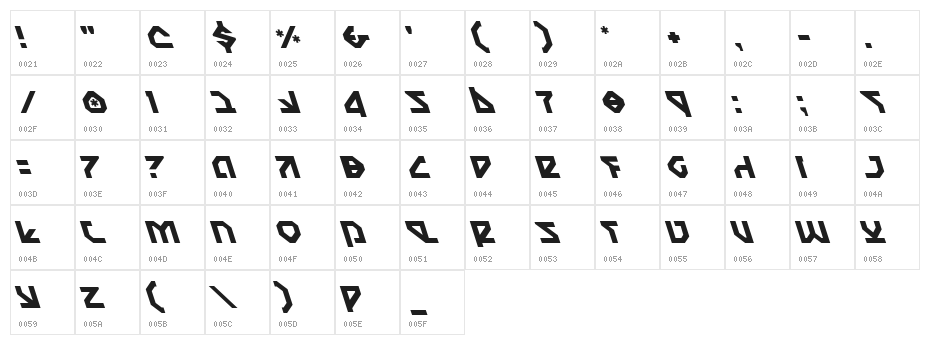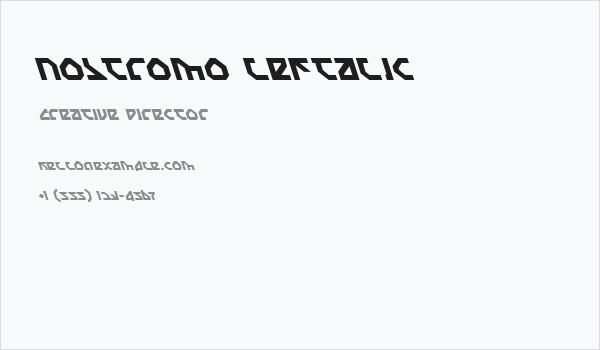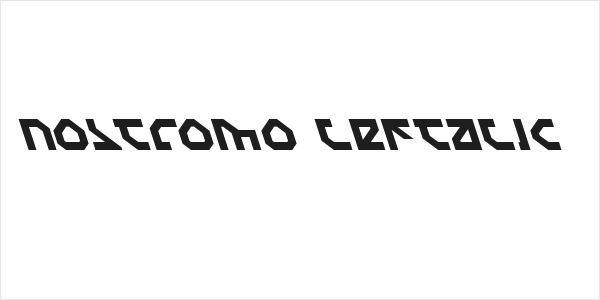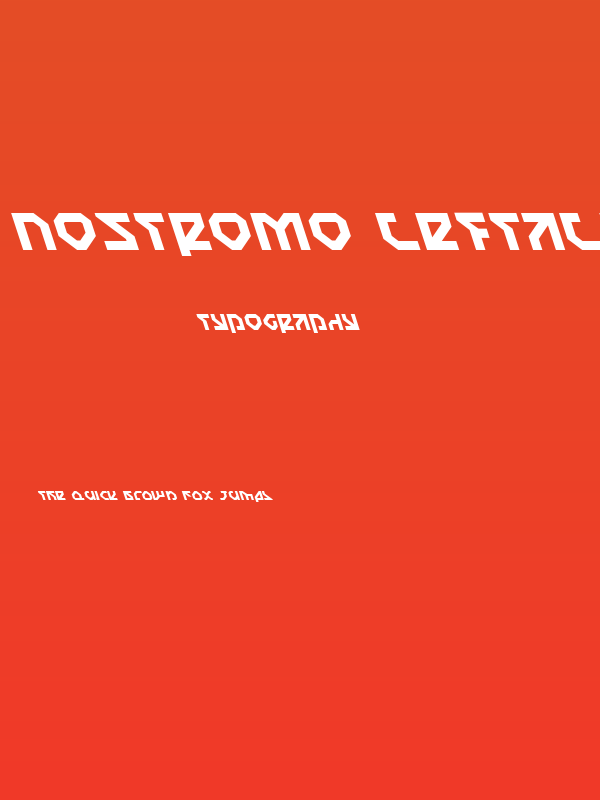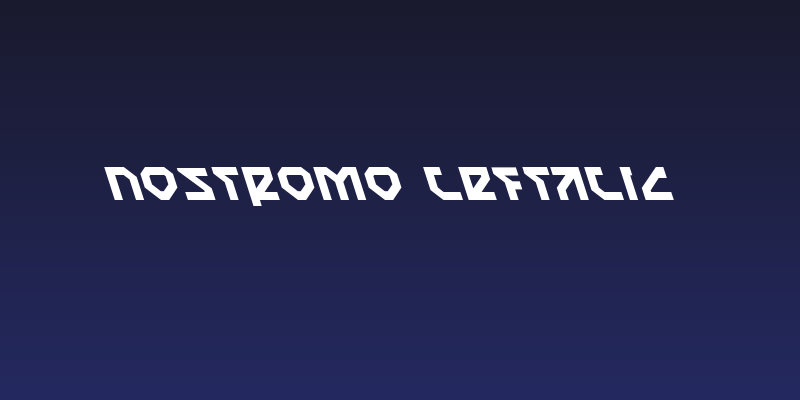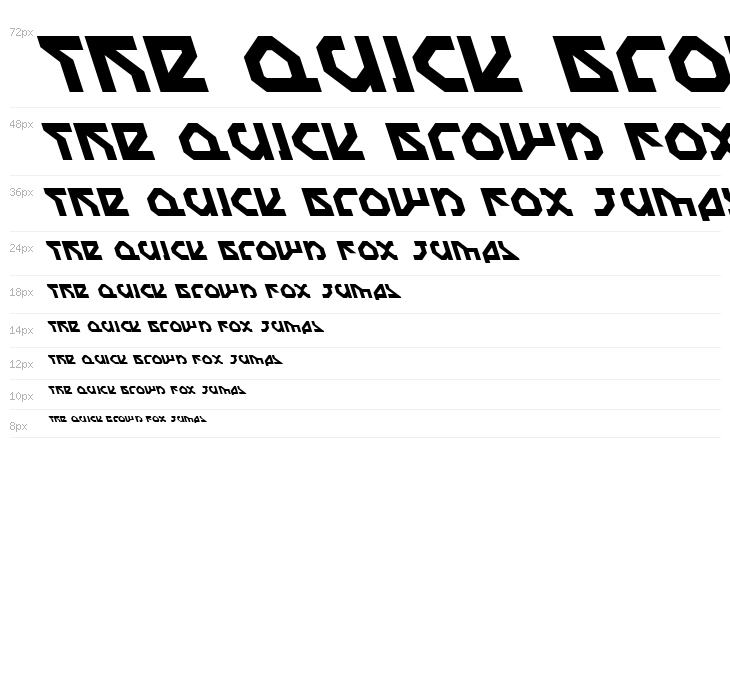
Nostromo Leftalic Font
Nostromo Leftalic Description
This font features a futuristic and angular design, characterized by sharp edges and geometric shapes. The letters are bold and have a distinct slant, giving them a dynamic and forward-moving appearance. The uppercase and lowercase letters maintain a consistent style, with each character exhibiting a unique angular form. The numbers and special characters follow the same design principles, ensuring uniformity across the font. The overall look is modern and edgy, making it suitable for projects that require a strong and impactful visual presence.